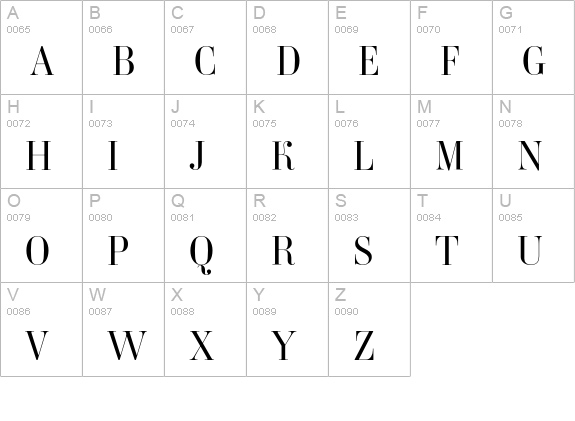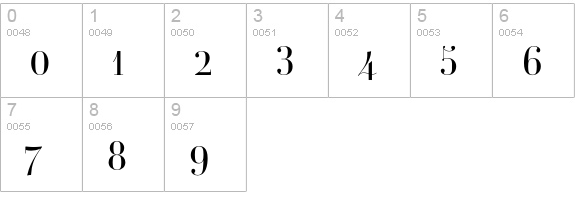
Ambroise Light is a refined, elegant variant in the Ambroise typeface family \xE2\x80\x94 well suited to elegant body text, refined sub-headings, and luxury branding.
Ambroise Light font is a sleek and elegant typeface that exudes sophistication and modernity. Its clean lines and gentle curves make it perfect for a wide range of design projects, from branding to editorial design. The delicate serifs add a touch of refinement, while the overall minimalist aesthetic ensures readability and versatility. Best of all, Ambroise Light font is available for free download at FontsMarket.com. This means you can easily access this stylish typeface for your creative endeavors without any cost. Whether you are working on a website, poster, or logo design, Ambroise Light font will elevate your project with its timeless appeal. Download it today and bring a touch of class to your designs.